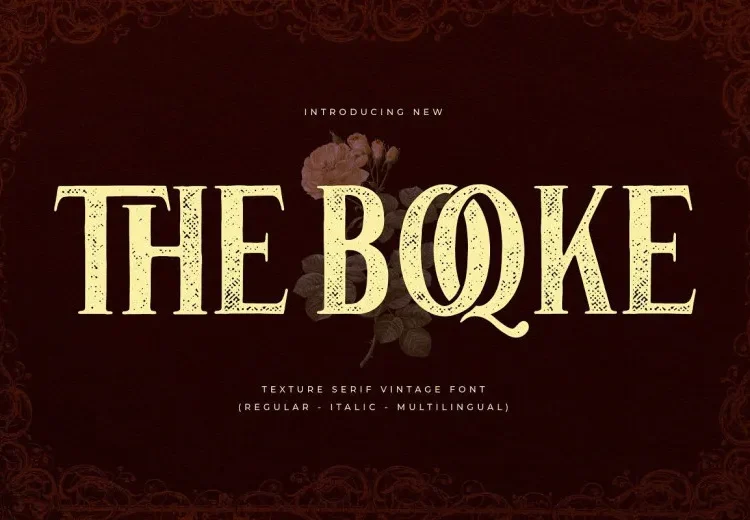
The Boqke Font
Boqke is a modern serif typeface designed to bring a touch of sophistication and contemporary flair to your creative projects. Its distinctive style makes it ideal for crafting classy logos, fashion branding, and elegant designs that stand out.
This font is versatile, suitable for book and film titles, magazine layouts, stylish clothing labels, and artistic quotes. With its refined details and timeless appeal, Boqke ensures your work exudes professionalism and creativity.
Whether you’re designing for digital media or print, Boqke adapts effortlessly to elevate your visuals with elegance and clarity. From personal projects to branding endeavors, this typeface is a valuable addition to your toolkit.